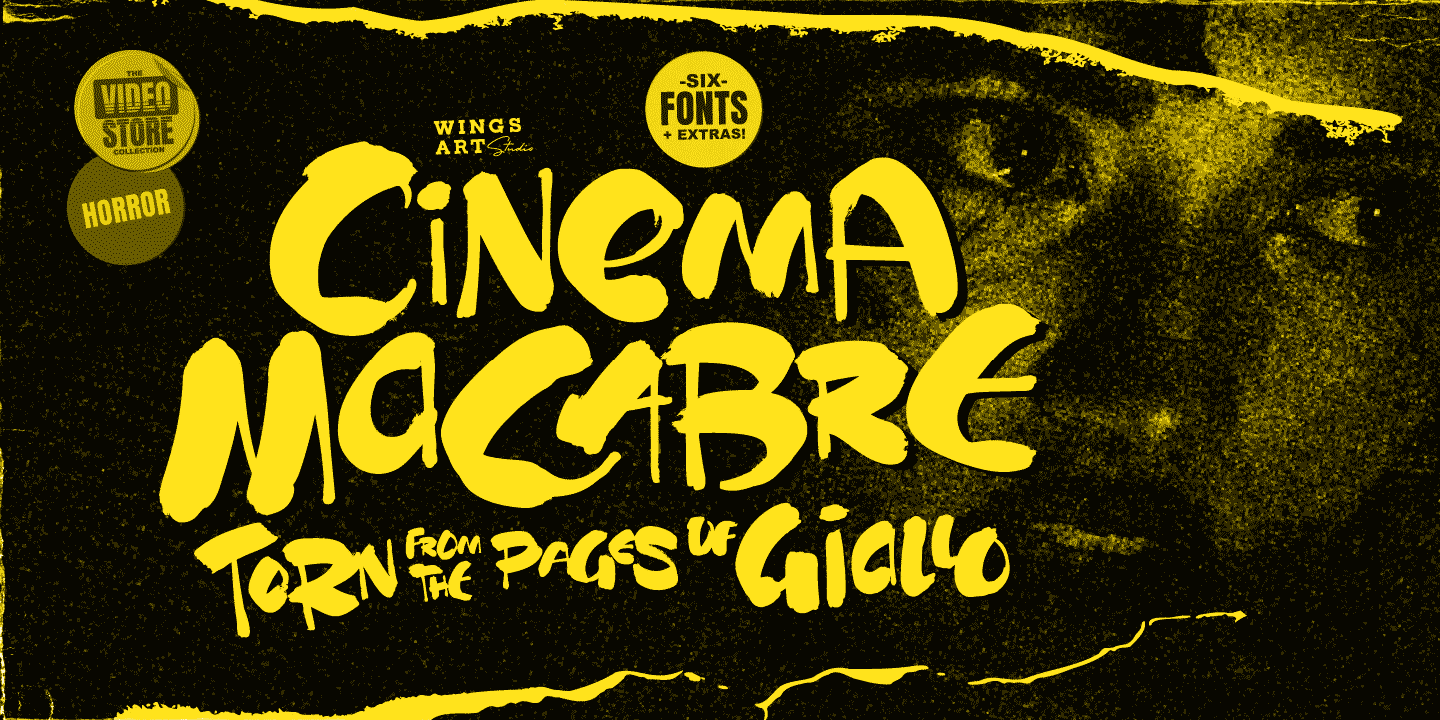
Cinema Macabre Font is perfect for horror film festivals, gothic cinema theaters, vintage horror movie posters, dark film production companies, macabre documentary titles, supernatural thriller promotions, classic horror film restorations, gothic entertainment venues, horror streaming platforms, and spine-chilling cinematic advertising.
What makes Cinema Macabre Font exciting is its darkly cinematic character that perfectly captures the atmospheric dread and vintage horror elegance found in classic horror cinema and gothic film tradition. This typeface features dramatic letterforms with film-noir proportions and macabre details that evoke the haunting beauty of vintage horror movie titles and the sophisticated terror of classic cinematic storytelling. The font's gothic personality and horror cinema authenticity make it ideal for entertainment brands seeking to convey atmospheric terror, cinematic sophistication, and the timeless fear that comes from masterfully crafted horror filmmaking and gothic storytelling tradition.
Cinema Macabre Font family includes spine-chilling weight variations and gothic alternatives that enhance its horror cinema appeal while providing design flexibility for entertainment and horror applications. The font features film-noir ligatures, macabre ornaments, and gothic character variations that create authentic vintage horror atmosphere for cinematic and entertainment branding.
Horror film companies and gothic entertainment venues consistently select Cinema Macabre Font Free Download for projects requiring authentic horror cinema appeal and gothic credibility. The font's darkly cinematic character excels in applications targeting horror film enthusiasts, gothic culture followers, and cinema lovers who appreciate classic horror filmmaking and atmospheric terror. Whether you're designing for horror festivals, gothic theaters, or vintage horror productions, this haunting typeface delivers the horror cinema authenticity and gothic elegance that resonates with audiences seeking genuine cinematic terror and the sophisticated fear that defines classic horror film artistry.